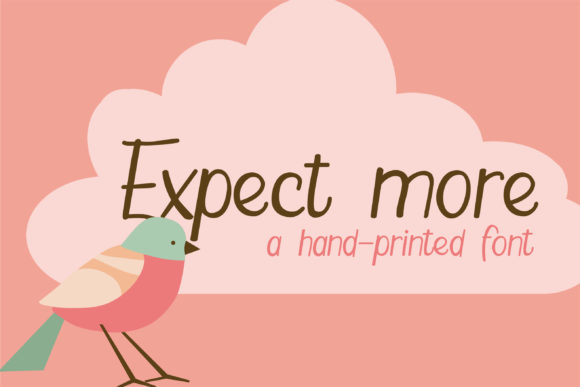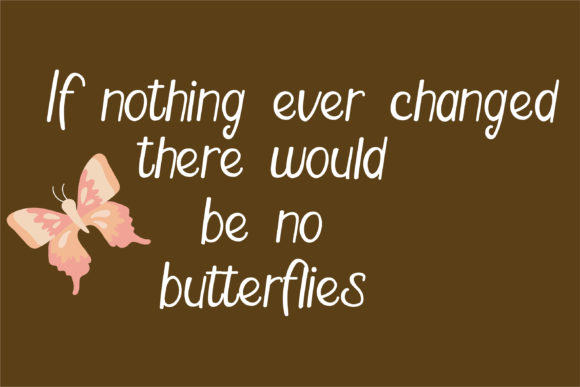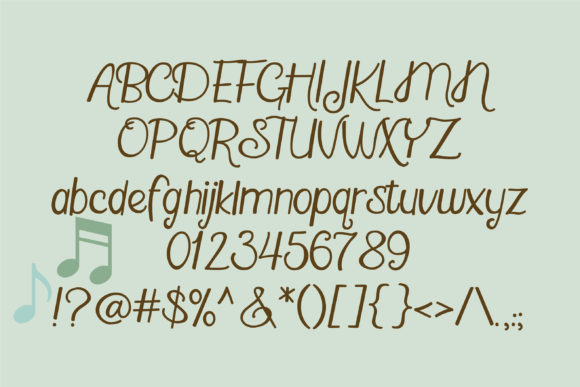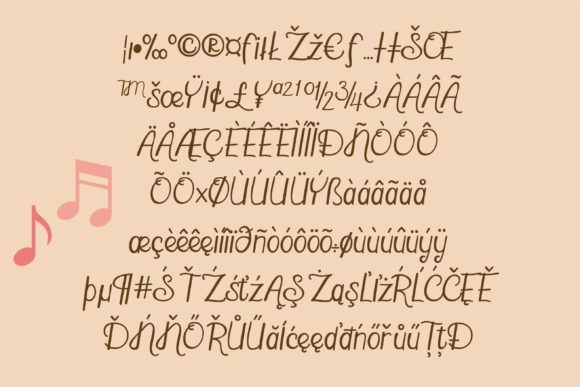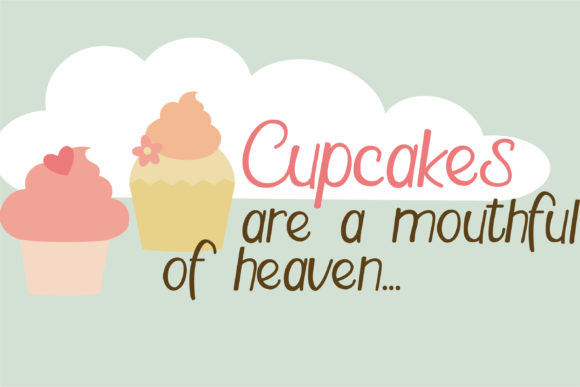
HomeScript FontsExpect More Font Script Fonts Expect More Font FacebookXPinterestWhatsApp Expect More Font Poster 2 Expect More Font Poster 3 Expect More Font Poster 4 Expect More Font Poster 5 About Expect More Font This casual hand-written print looks great paired with her sister font, a script called Expectations. DOWNLOAD NOW People also explored Aghony Font Priscillia Font Boho Love Font Hand-Lettered Bundle 100+ Fonts Included Stokyt Font War Warrior Font Symbian Cute Font Kiddos Famous Font Gelato Font 286 0 TagsExpect More Font Previous articleRocking Daisy FontNext articleExpectations Font LEAVE A REPLY Cancel reply Comment: Please enter your comment! Name:* Please enter your name here Email:* You have entered an incorrect email address! Please enter your email address here Website: Save my name, email, and website in this browser for the next time I comment. Personal Use Free Letter Hanger Personal Use Free Read more about this font Street Cred Personal Use Free Read more about this font Wadjet Personal Use Free Read more about this font Micahel Personal Use Free Read more about this font BLOG Top 10 Handwritten Fonts That Elevate Your Designs Top 10 Handwritten Fonts That Will Elevate Your Designs Handwritten fonts bring a warm, personal touch to every creative project. Whether you're designing logos, invitations,... Transform Your Website: Elevate Your Typography with 7 Best Web Font Generators Elegant Wedding Invitation Fonts – Handwritten & Script Fonts To increase your work productivity, choose the most readable fonts.